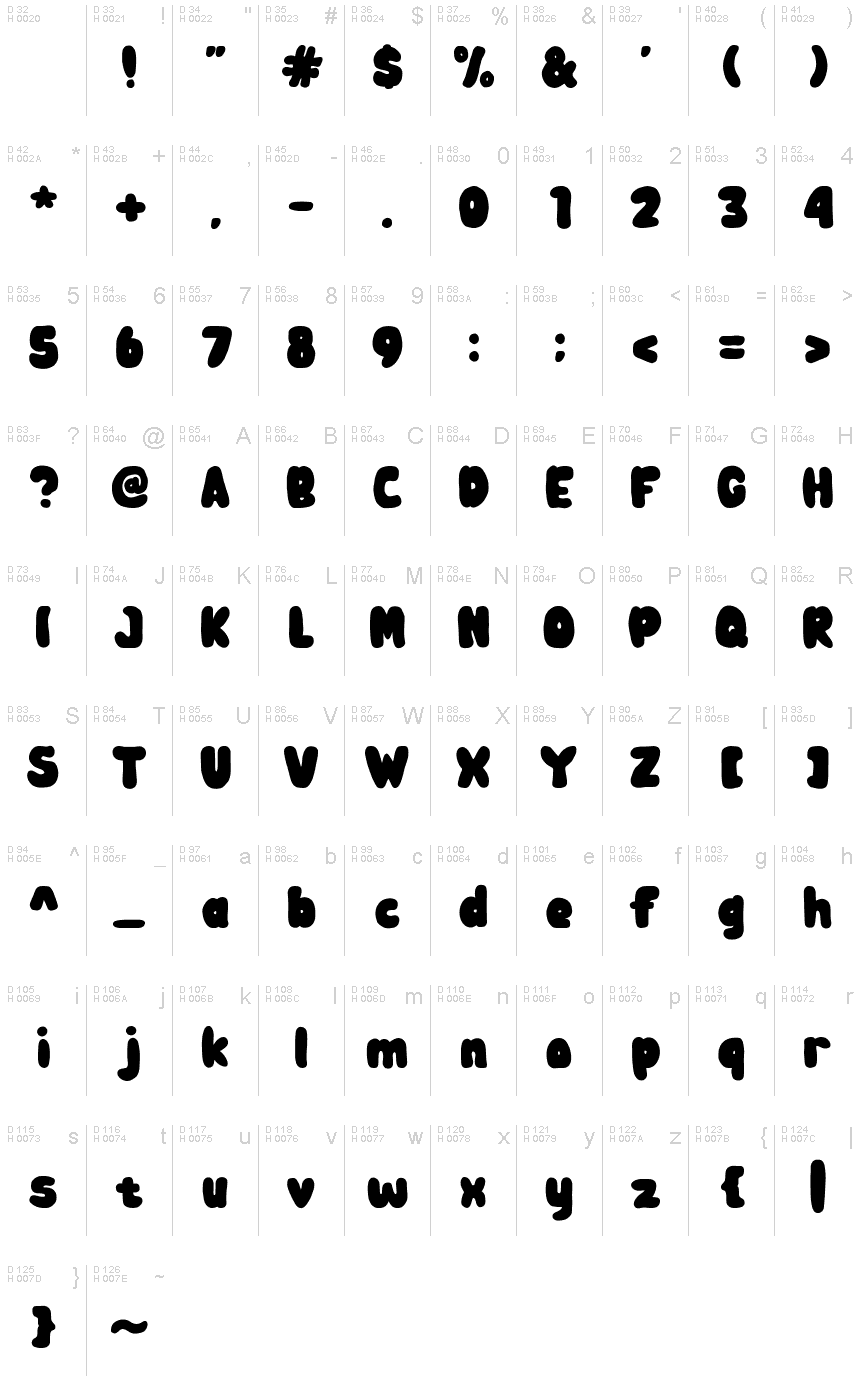
Zombie Land
Zombie Land, designed by Muhammad Yafinuha, is a captivating display font that adds an extra-bold touch to any project.
Its cartoon-style design brings a playful and animated vibe, making it perfect for children's books, comic strips, video game logos, and Halloween-themed graphics. With its bold lines and distinctive characters, Zombie Land stands out in both digital and print mediums.
Whether you're working on a spooky poster or creating eye-catching website headers, this font is sure to grab attention and inject some fun into your designs.